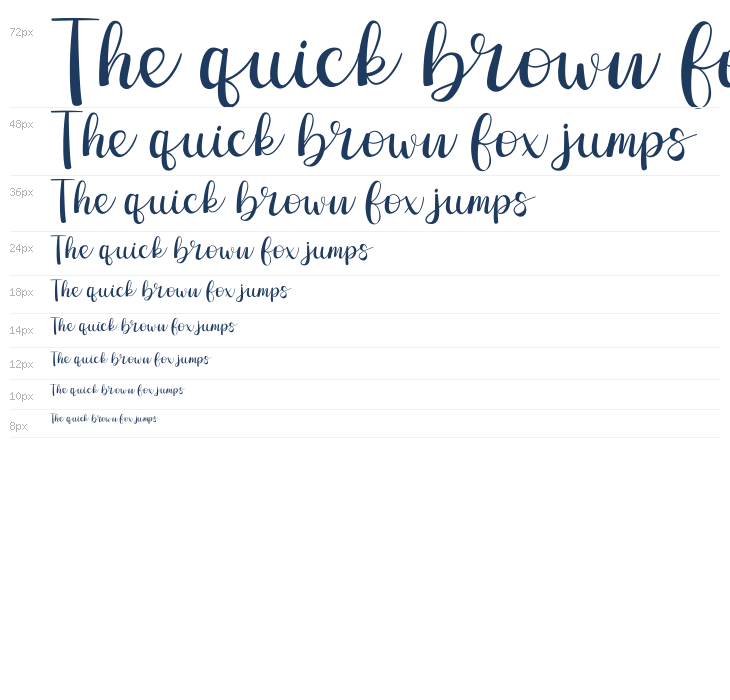
Make Wonderful Moments Script Font
Make Wonderful Moments Script Description
This script font exudes elegance and charm, characterized by its flowing, cursive style that mimics natural handwriting. The letters are interconnected with smooth, sweeping strokes, creating a sense of fluidity and grace. The uppercase letters are ornate and slightly larger, providing a striking contrast to the more delicate lowercase letters. This font features a medium contrast in stroke thickness, adding to its readability while maintaining a sophisticated appearance. The character spacing is normal, allowing each letter to be distinct yet harmoniously connected. The overall style is modern with a touch of classic elegance, making it versatile for various design needs.
| Proposed Projects | Ideal for wedding invitations, greeting cards, branding, and elegant logo designs. |